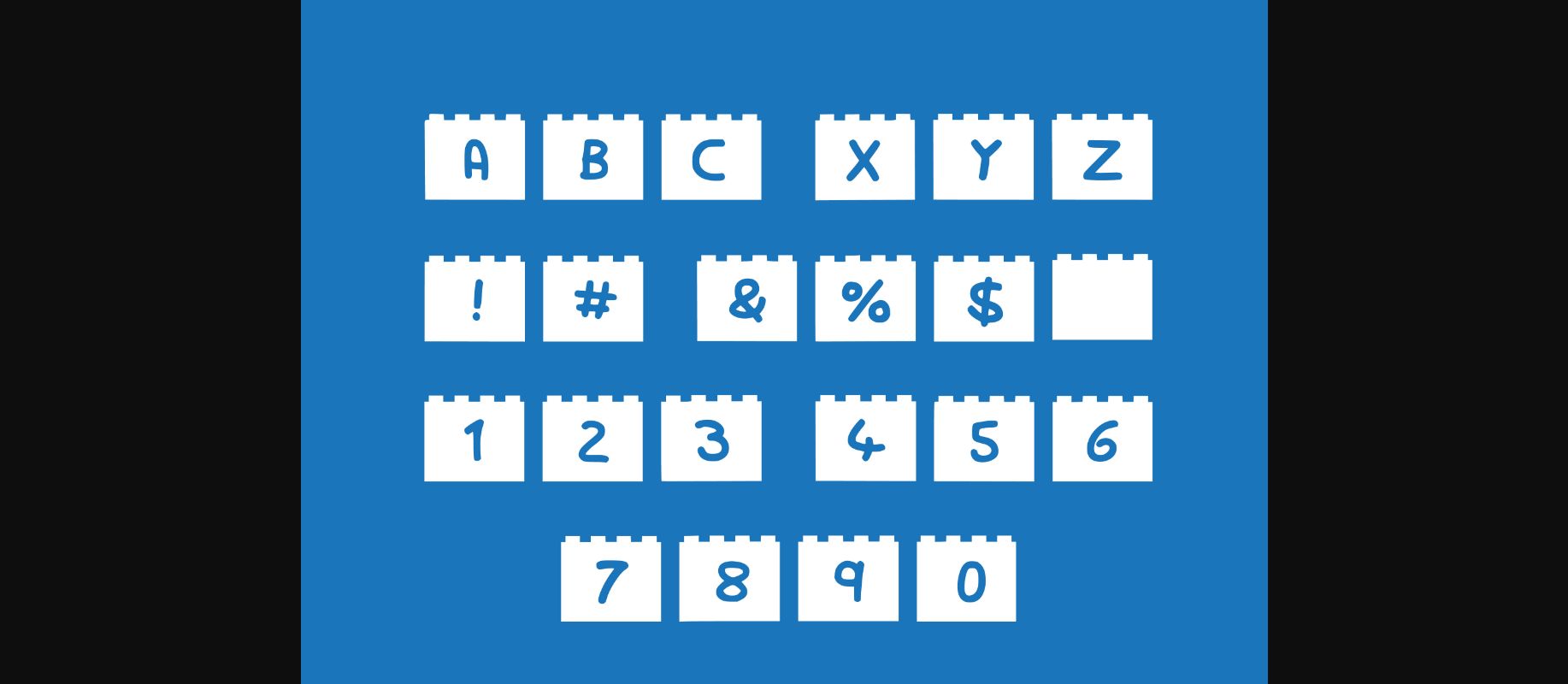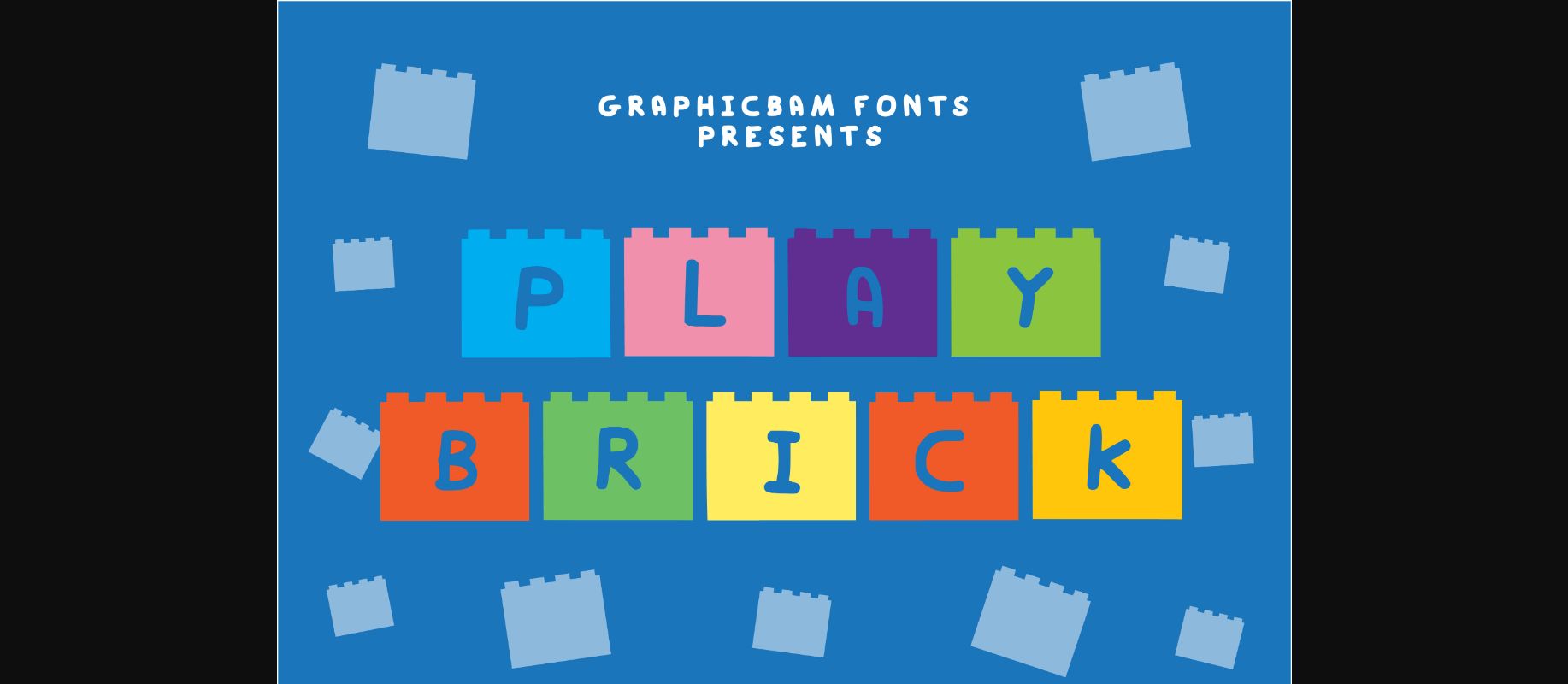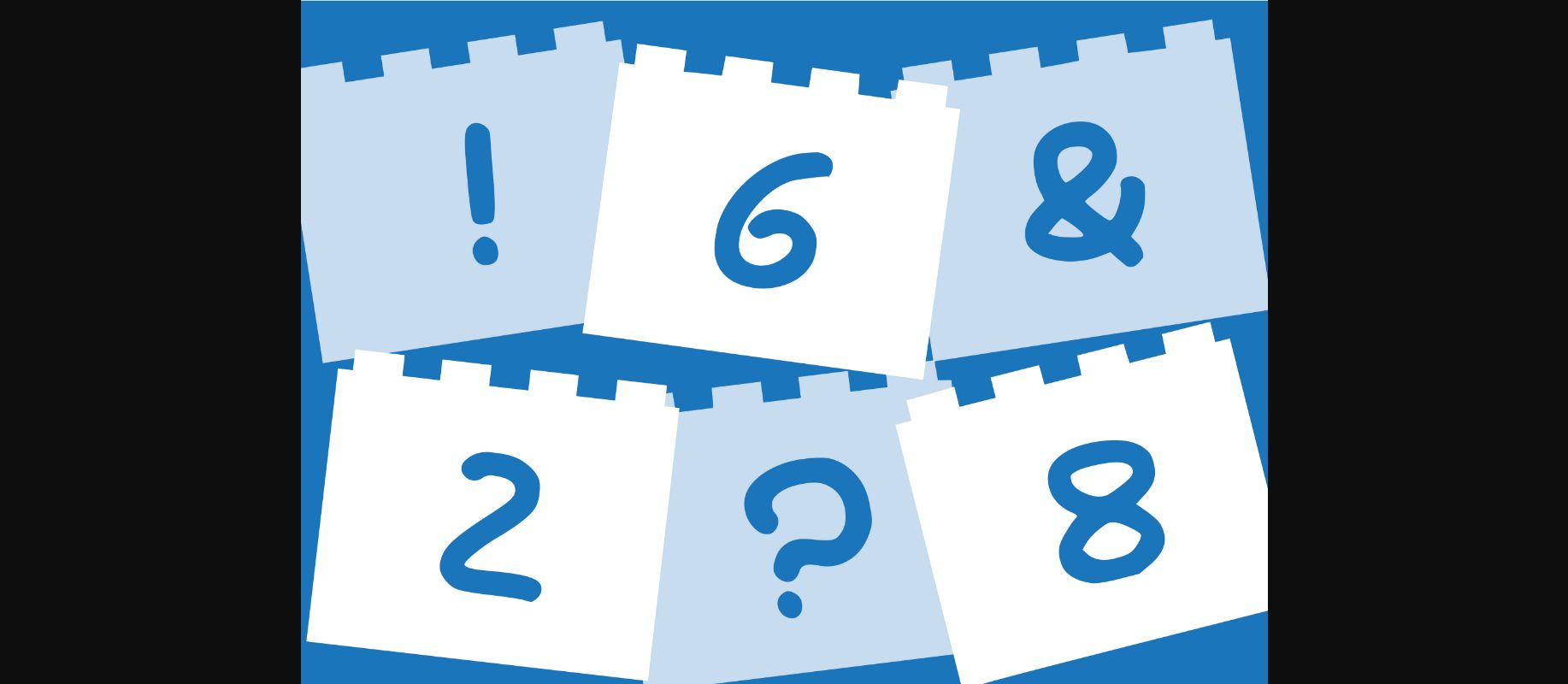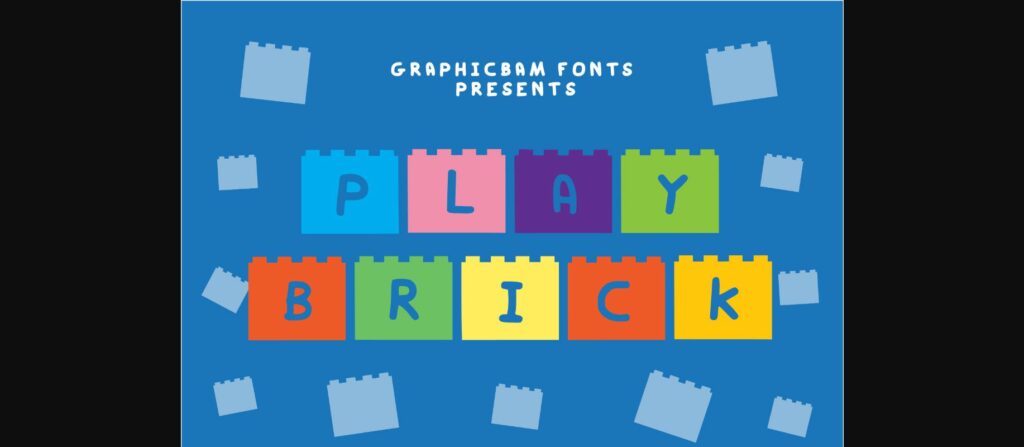
About Play Brick Font
Play Brick is a cool looking and interesting decorative font, featuring a brick on each character. Whether you’re using it for crafts, digital design, presentations, or making greeting cards, it’s the perfect choice.